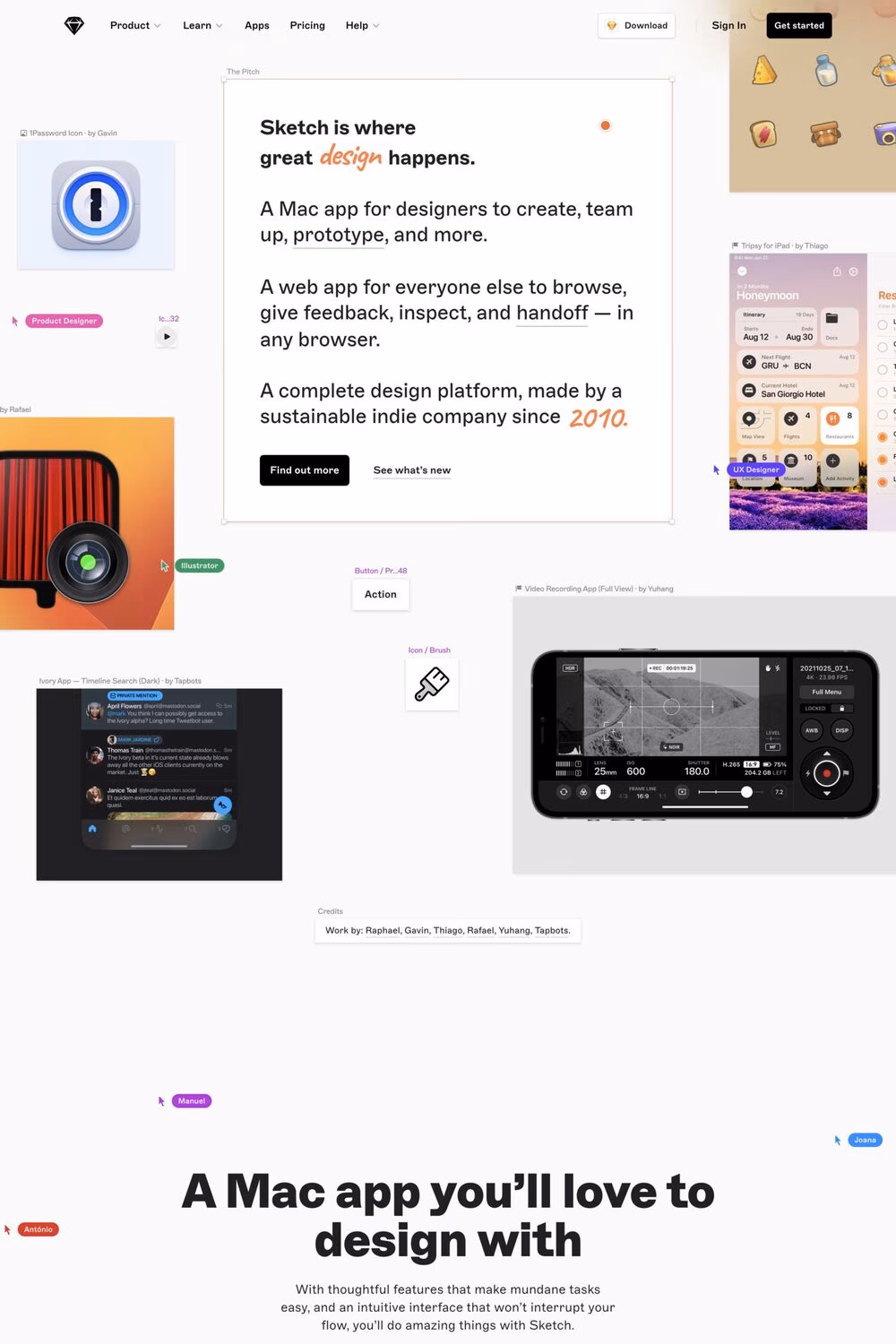
Marfa is a serif typeface from Dinamo.
While stylistically born in the hot metal typesetting period, Marfa was designed in a high-speed era of no time to lose: Its uprights were drawn in under 1,000 hours and its hot-headed Italics in less than half of that. Initially, Marfa was a sturdy, utilitarian typeface of three modest weights known as Gothic No. 6, drawn by Fabian Harb in homage to early American gothic typefaces.
A1 features 1 website using Marfa. It leans towards Interactive, Hand-drawn, and Stickers design styles.